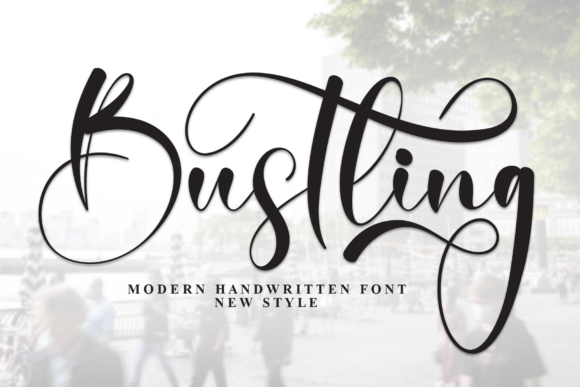
Have you ever sat in front of your computer, staring at a blank page, waiting for the perfect font to strike inspiration? It’s a feeling we’ve all been there, and it’s exactly this moment that made us fall in love with the Bustling Font.
This charming handwritten font is designed to bring a sense of energy and playfulness to your text. With its unique blend of thin and bold lines, the Bustling Font is perfect for creative projects that require a touch of whimsy. Whether you’re designing a logo, a brochure, or a social media campaign, this font is sure to make your text stand out from the crowd.
For designers, the Bustling Font is a valuable addition to any font collection. Its versatility and unique style make it a great choice for a wide range of projects, from branding and advertising to editorial and educational content.
Bustling Font Key Features
- Character Set: The font includes a wide range of characters, including uppercase and lowercase letters, numbers, punctuation marks, and special characters, making it suitable for various design applications.
- Unique Characteristics: Bustling Font features a dynamic, energetic feel, with bold lines and vibrant letterforms that add a touch of excitement to any design.
Bustling Font Review
As a designer, I’ve had the chance to work with “Bustling Font” and I must say it’s an interesting choice. There are some aspects where it truly shines ✨. Here are a few things I appreciate about it:
- ✨ The unique blend of modern and vintage elements makes it perfect for creating a nostalgic yet trendy feel.
- ✨ Bustling Font is highly legible, even at smaller font sizes, which is a must-have for any font in my book.
- ✨ The font has a lot of character and can add a touch of personality to any design project.
However, there are some limitations ⚠️ that might make it less suitable for certain projects:
- ⚠️ Bustling Font might be a bit too ornate for projects where simplicity is key.
- ⚠️ Some characters, like the lowercase “a” and “e”, can be a bit tricky to read in certain contexts.
- ⚠️ The font might not be suitable for body text, as it can be a bit too playful for large blocks of text.
Overall, I think Bustling Font is a great choice for designers looking to add some personality to their projects. While it may have some limitations, its unique charm and high legibility make it a great addition to any font collection.
To get the most out of Bustling Font, experiment with different font sizes, colors, and styles to achieve a unique look. Use it to add emphasis to headings, create visual interest in paragraphs, or add a playful touch to your design.
Bustling Font is ideal for:
– Blog posts and articles
– Advertising and marketing materials
– Digital signage and presentations
Alternatives to Bustling Font for Designers
Great Vibes is a modern, elegant script font that conveys a sense of sophistication and style. It is ideal for use in titles, headings, and other design elements where a touch of elegance is desired.
Compared to Bustling Font, Great Vibes is more refined and less playful. While Bustling Font is perfect for creating a lively and energetic atmosphere, Great Vibes is better suited for creating a more mature and sophisticated look.
Carolyna Pro is a luxurious script font that exudes luxury and sophistication. It is ideal for use in high-end branding, advertising, and editorial design where a sense of opulence is desired.